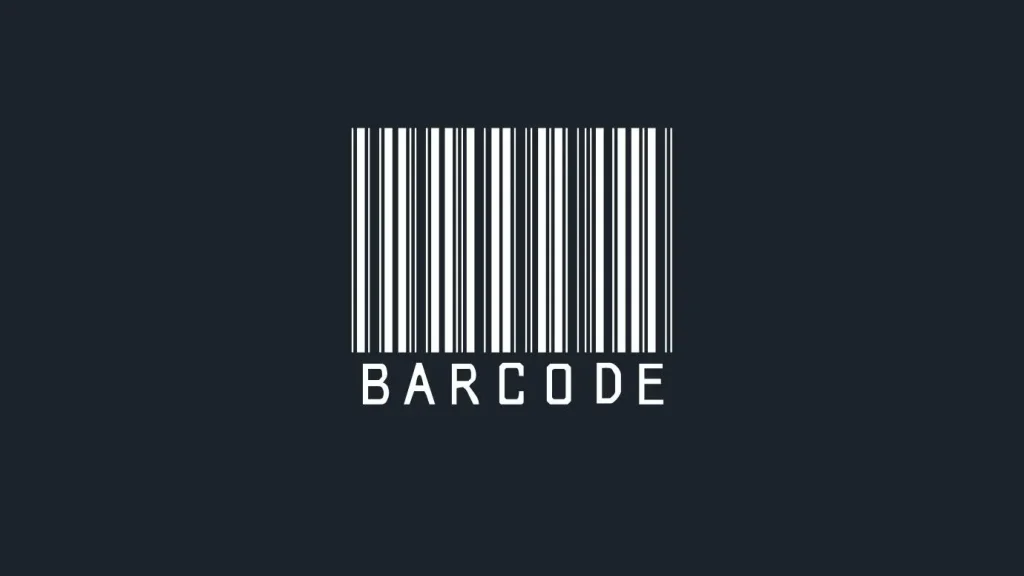
The text design is created by the well-known creator Anke-art. This font’s glyphs work best for a variety of text needs. Barcode Font is a font that can make an extraordinary brand view with an elegant and attractive textured design. This is a unique dingbat design.
This font also has a generator tool feature that can turn plain text into illustrations. This can be used by the designer for a variety of complex projects by pairing it with another typeface. Its appealing appearance makes it appropriate for use in the template design.
Where to Use Barcode Font?
A variety of name designs, signature designs, postcard designs, and magazine cover designs can all benefit from the use of this typeface. This fascinating typeface can be used to create lovely designs for greeting cards, advertisements, presentations, autographs, and other purposes.
This typeface appears in many journals such as books, publications, and journalists. It’s also a good option for headlines and body text. Such typeface inspires every company and enterprise.
Who designed Barcode Font?
The text design is created by the well-known creator Anke-art. This is a highly readable font planned to fulfill the needs of the content.
Where can I use Barcode Font?
A variety of name designs, signature designs, postcard designs, and magazine cover designs can all get benefit from the use of this typeface.